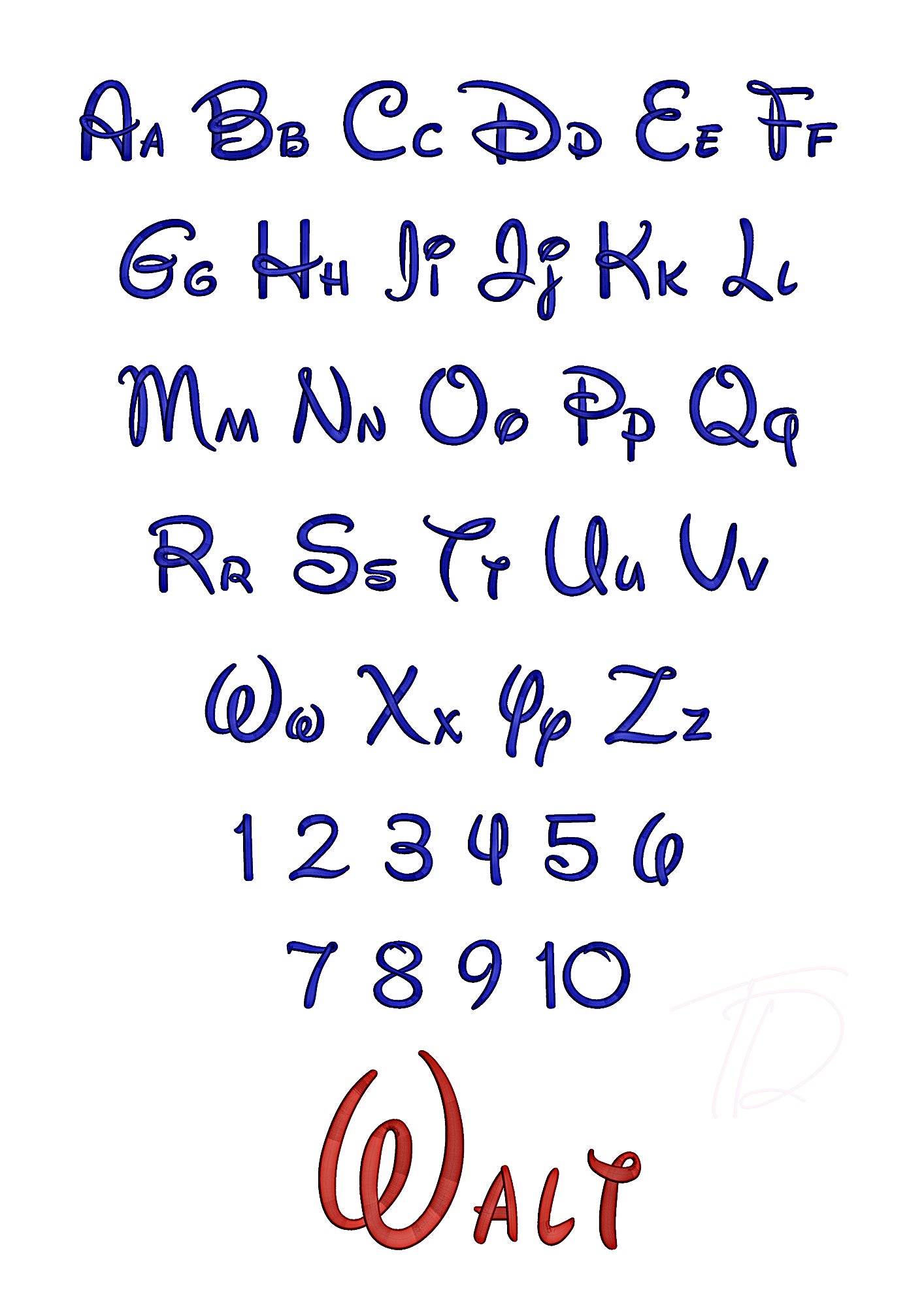
Walt Disney 3D puff embroidery digital font. Machine embroidery alphabet with foam. BX format
Walt Disney 3D puff embroidery digital font
This font comes with letters in 3 sizes, A-Z, a-z, 0-9